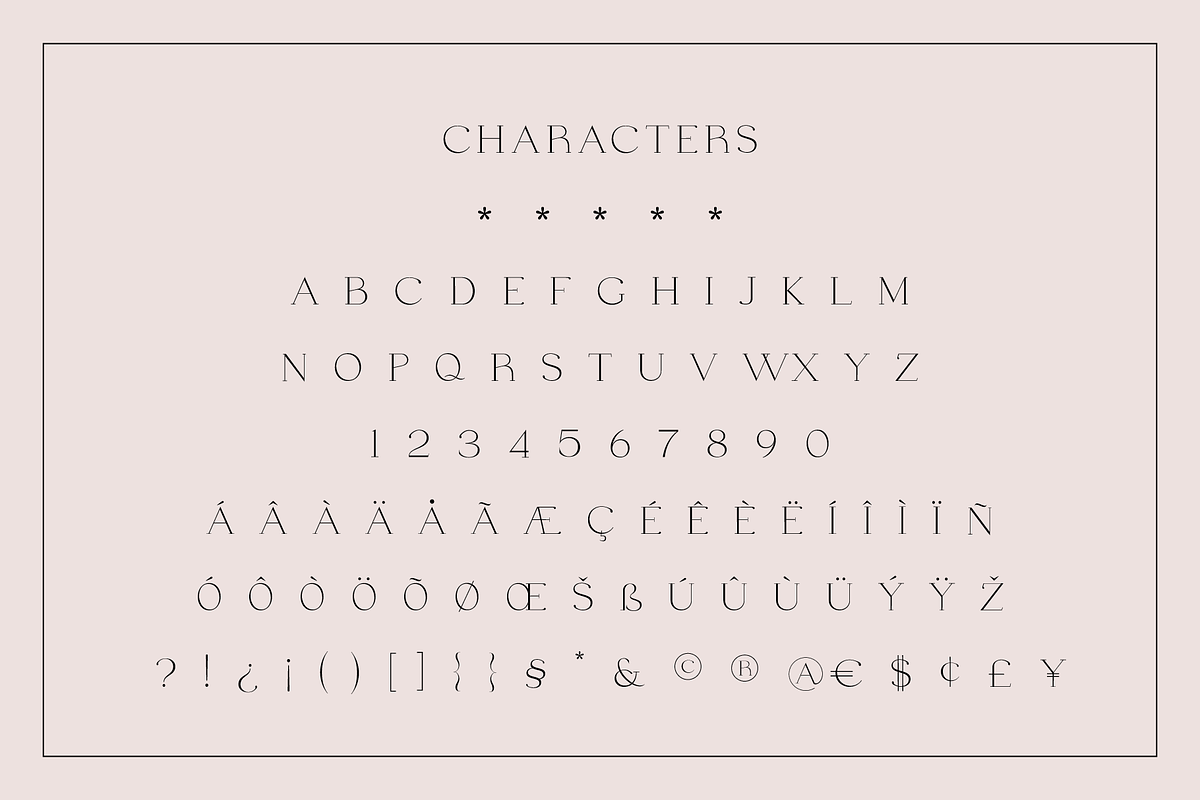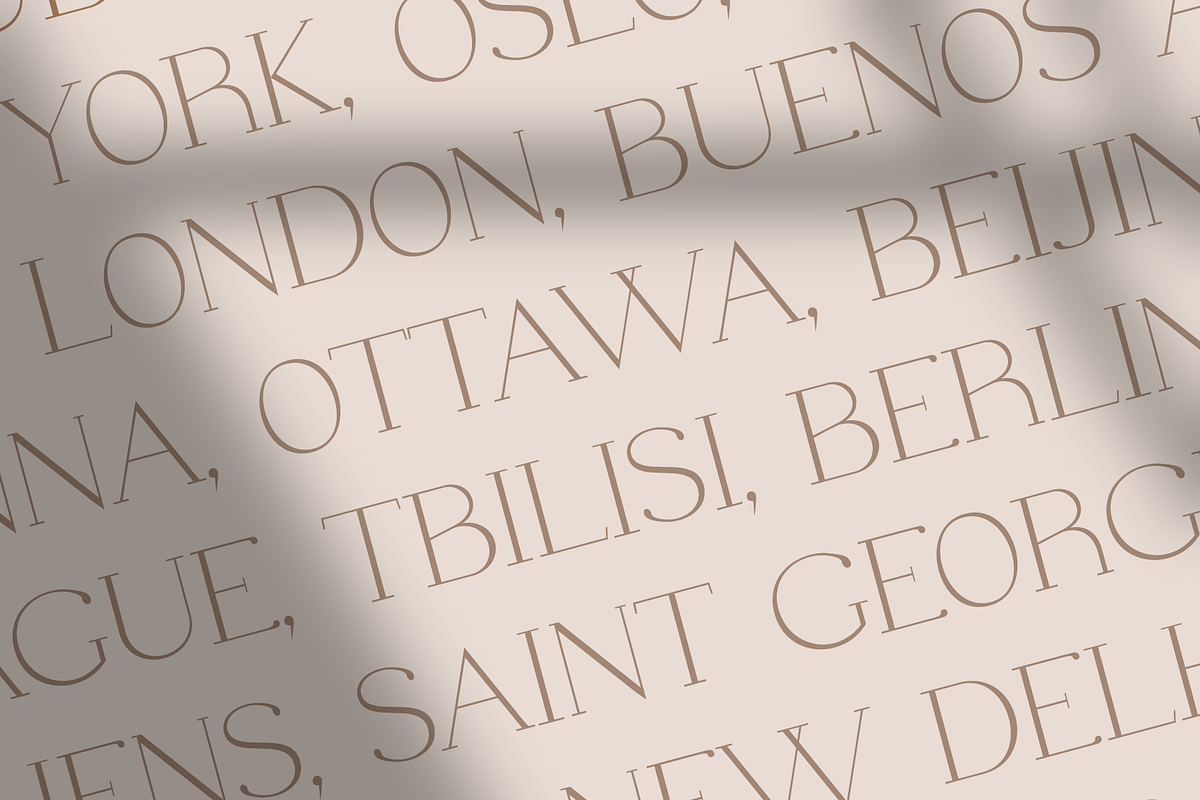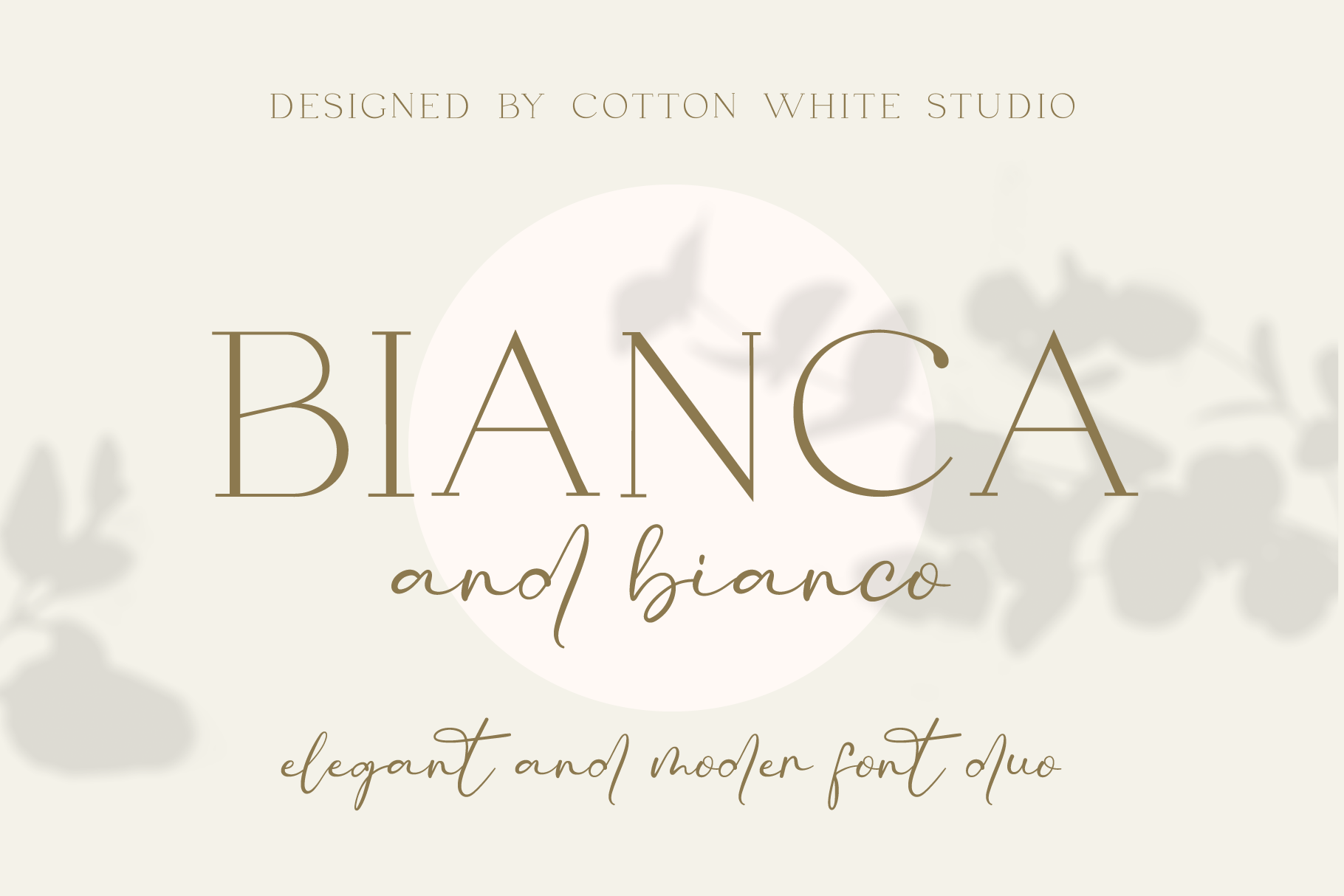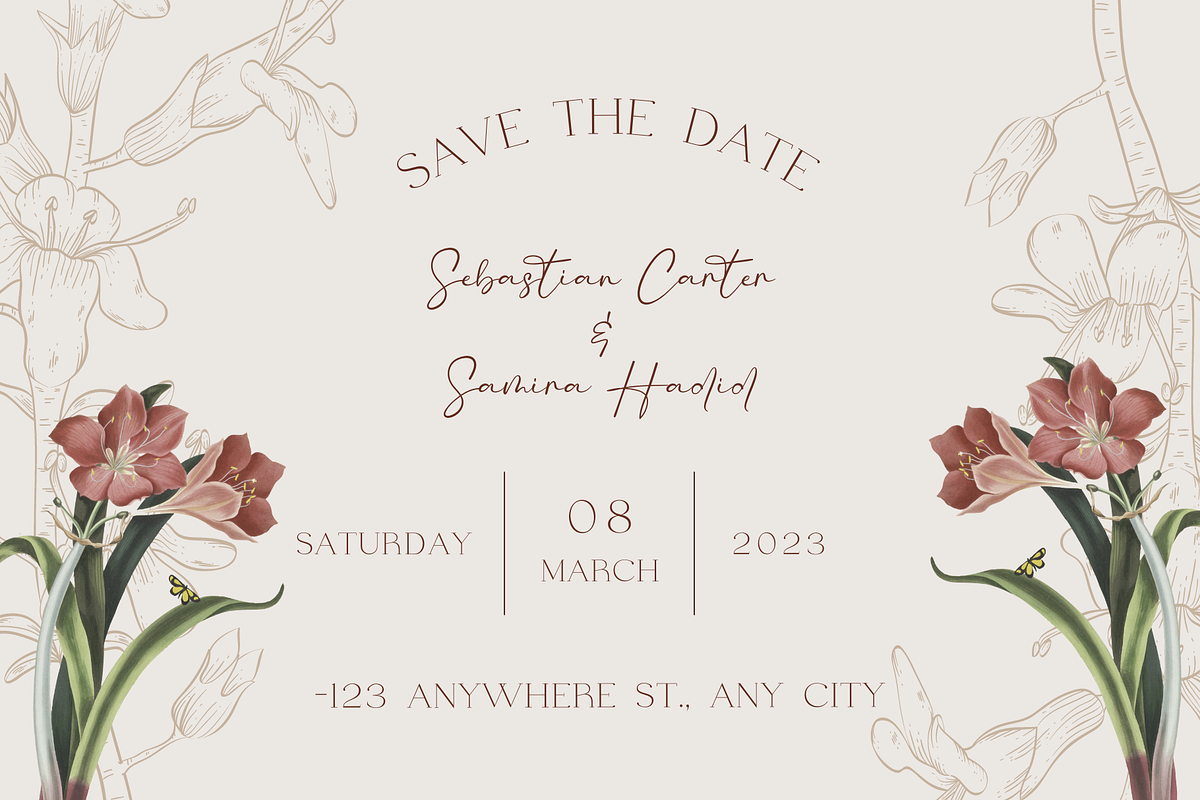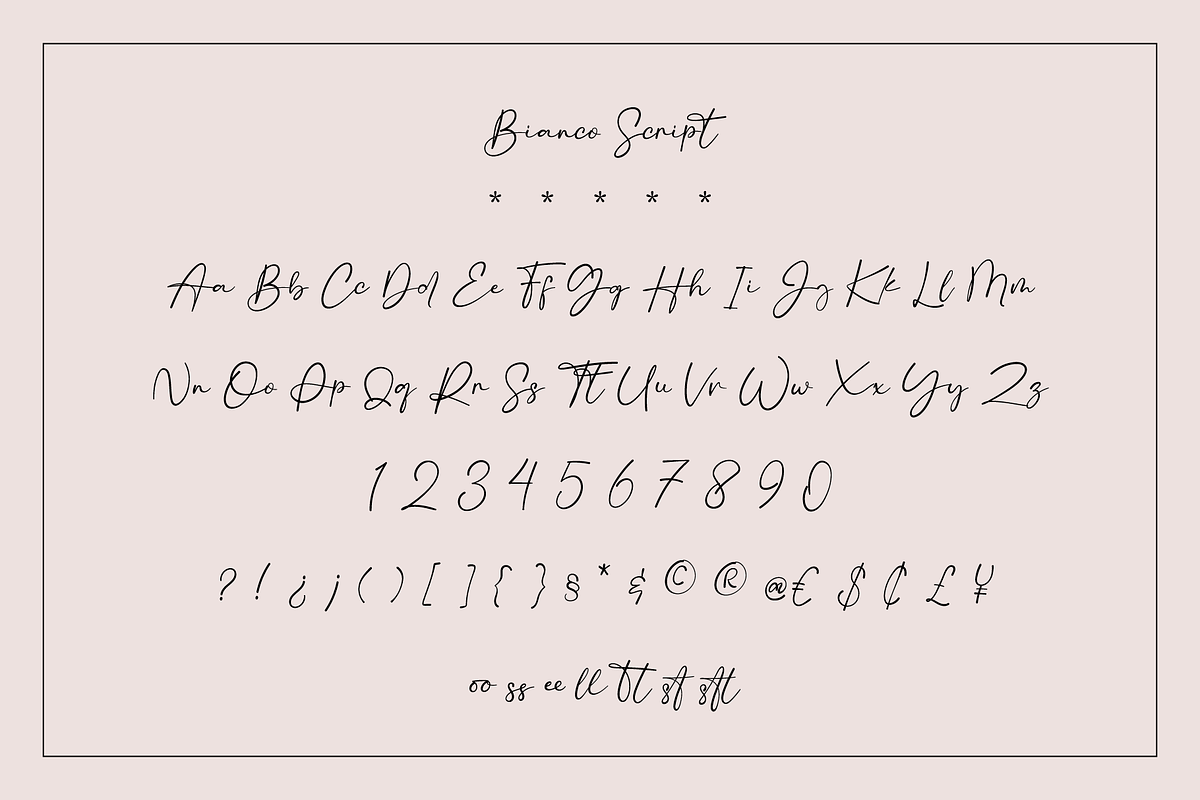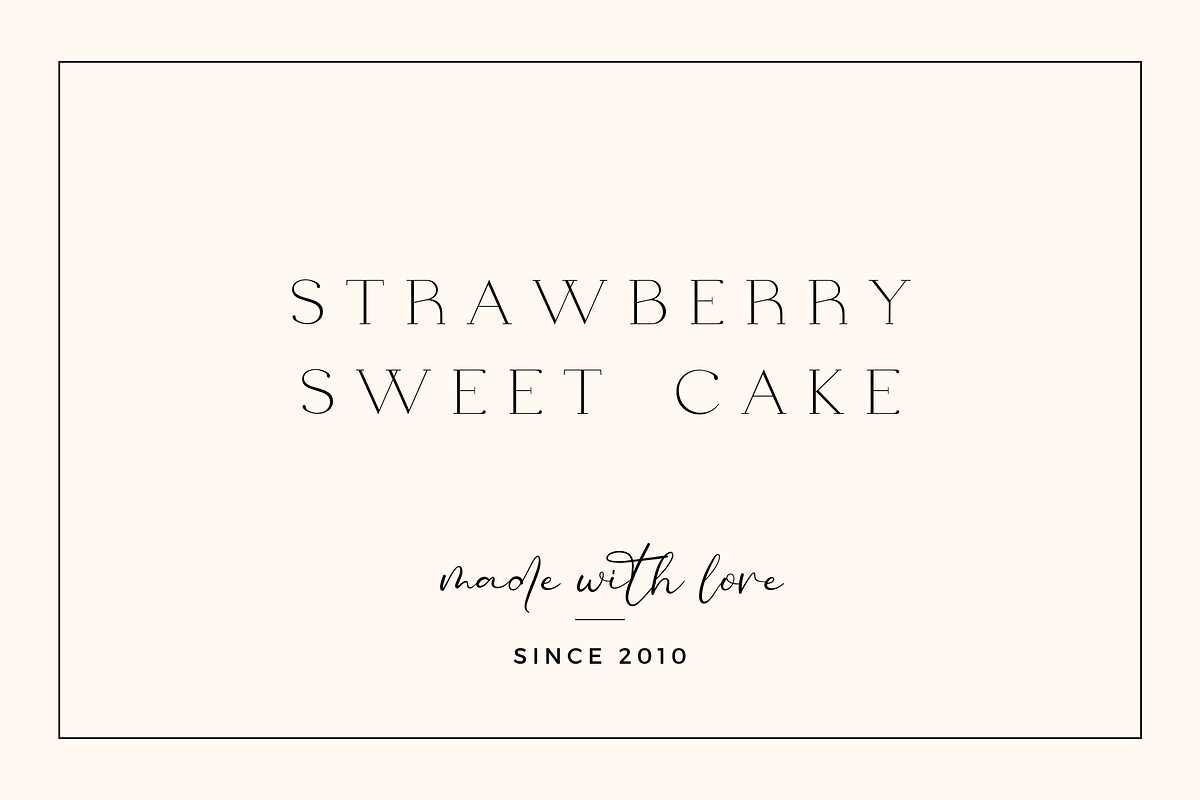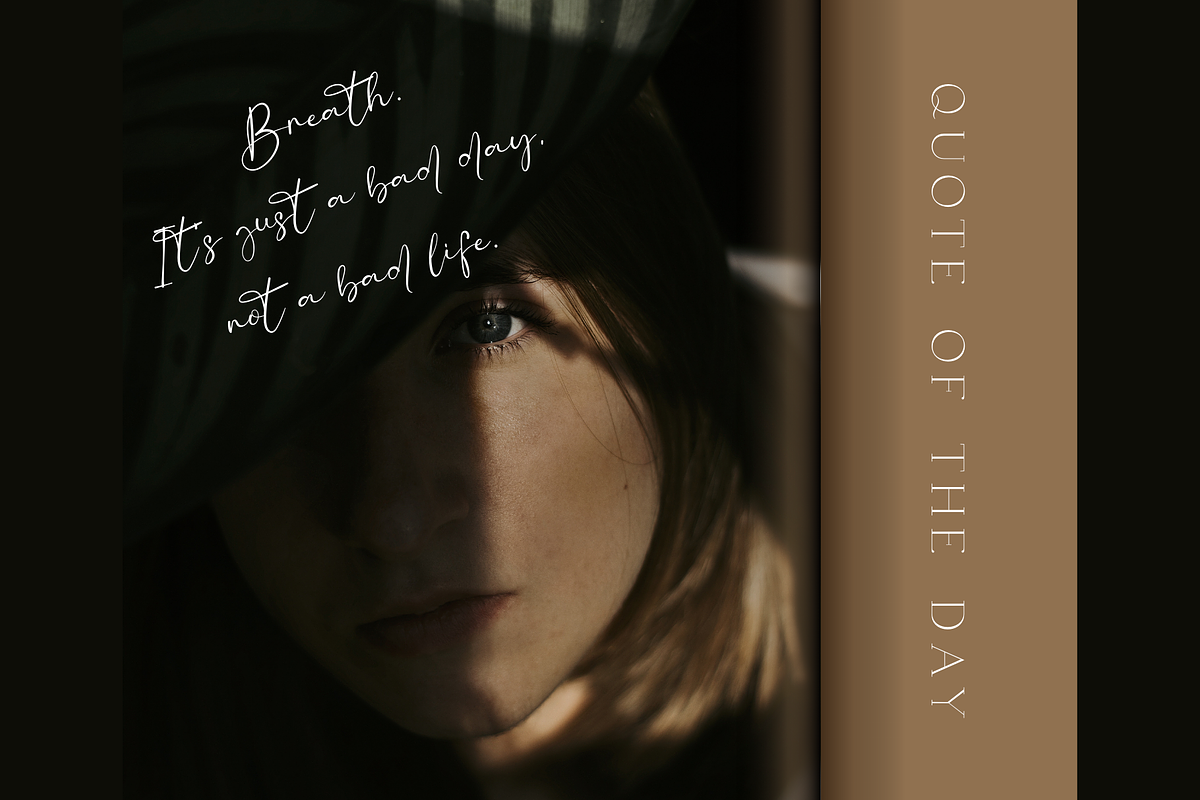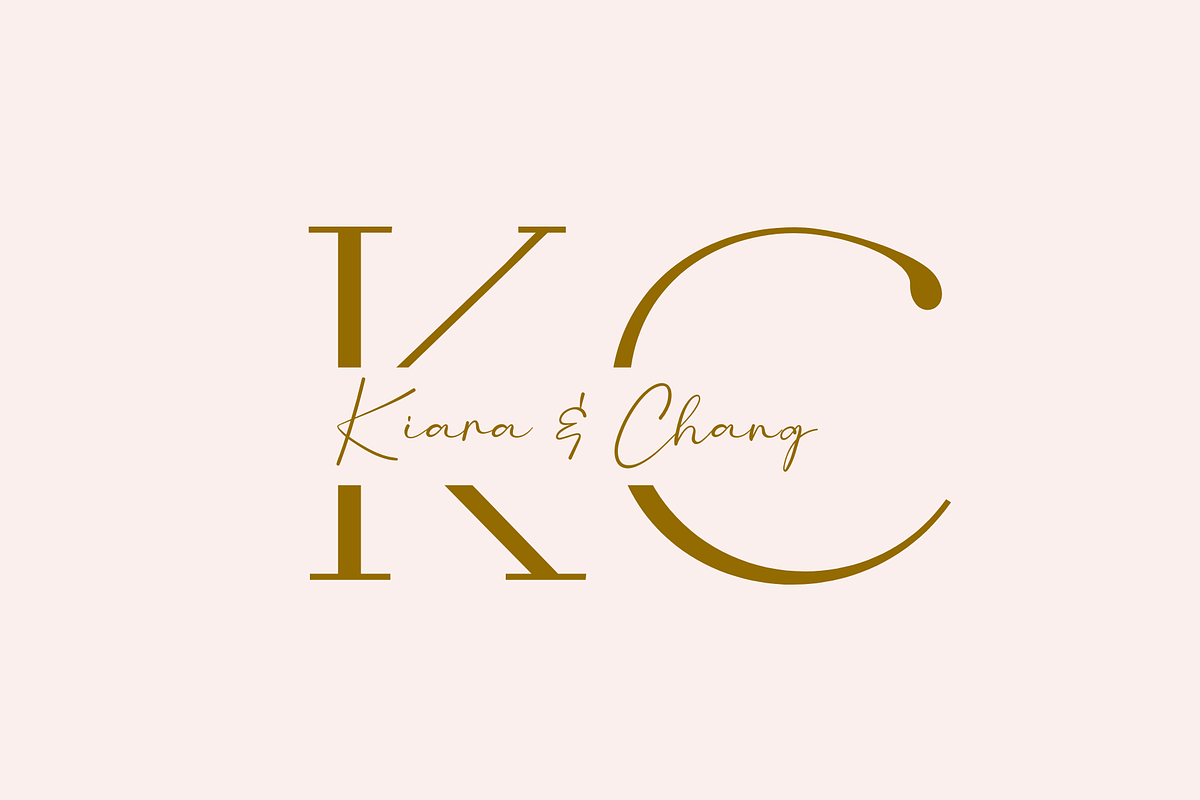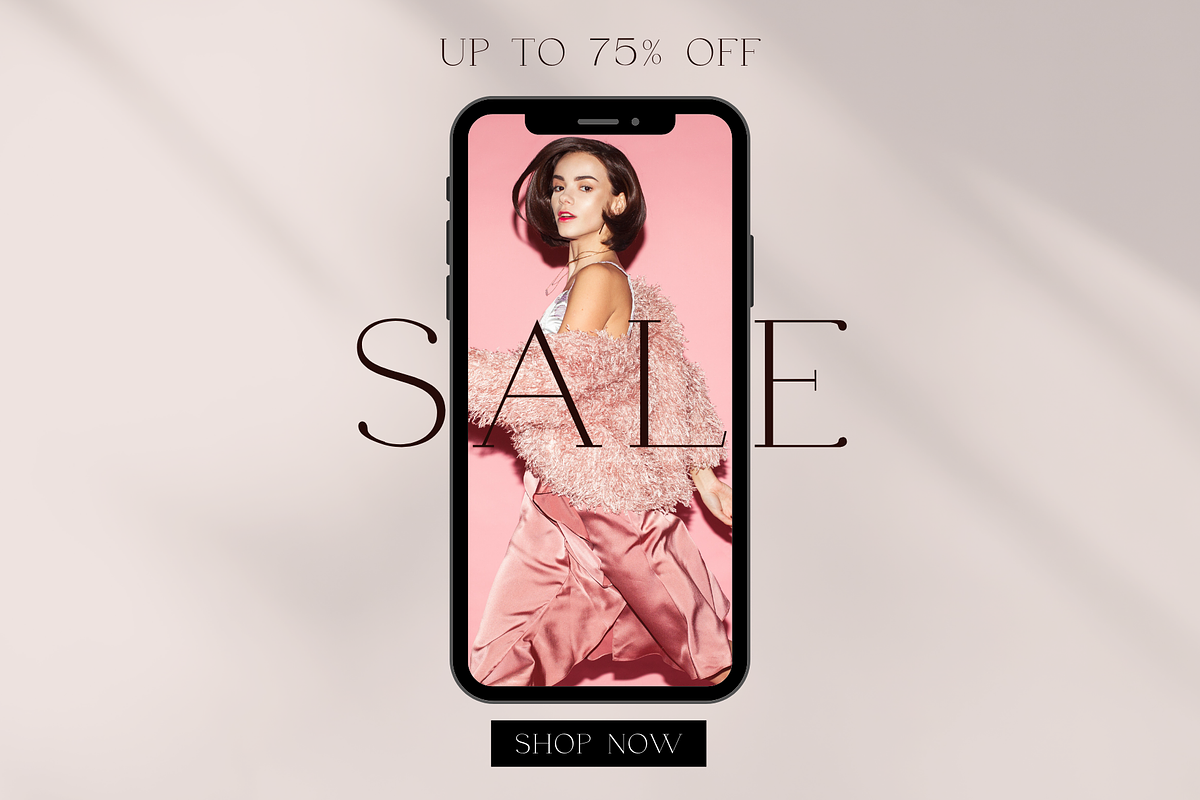
Bianca & Bianco Font Duo
Bianca and Bianco is a modern and luxurious all-caps serif and script font duo. Thin, minimalistic, and classic typeface great for unique titles, posters, magazines, monograms, logos, quotes, branding, editorial design, blog headers, and more, with a luxurious and stylish look.